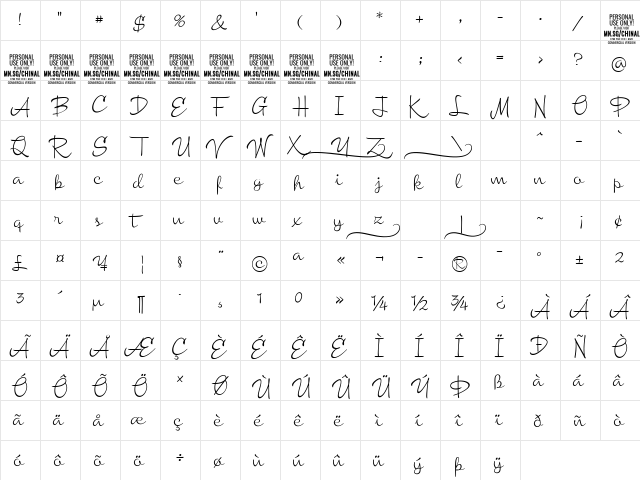
Chinal Light PERSONAL USE ONLY Regular
| Foundry | Mans Greback |
| Designer | Mans Greback |
Design Context for Chinal Light PERSONAL USE ONLY Typeface
Chinal Light PERSONAL USE ONLY takes a measured approach to typography — its balanced proportions and neutral character make it a reliable workhorse for both digital and print work. Its slender proportions lend an understated elegance to any composition.